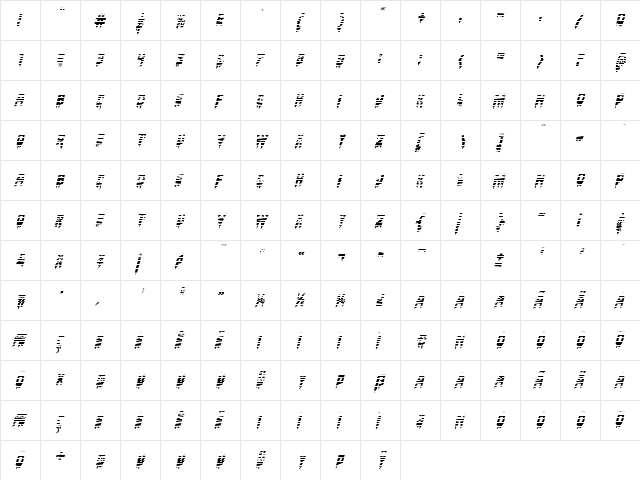
Bloodlust Gradient Italic Italic
Design Context for Bloodlust Gradient Italic Typeface
Bloodlust Gradient Italic leans into the macabre with letterforms designed to disturb and intrigue in equal measure. Its italic angle brings a sense of urgency and motion to the letterforms.
Perfect for anything that needs to unsettle — game titles, horror branding, and macabre invitations.
Font Pairing: Pair with a clean neutral sans-serif for body copy to let Bloodlust Gradient Italic's character lead without overwhelming the composition.
Pro Tip: Use Bloodlust Gradient Italic at larger display sizes for maximum impact. Consider generous tracking to let the disturbing character of each letterform breathe.